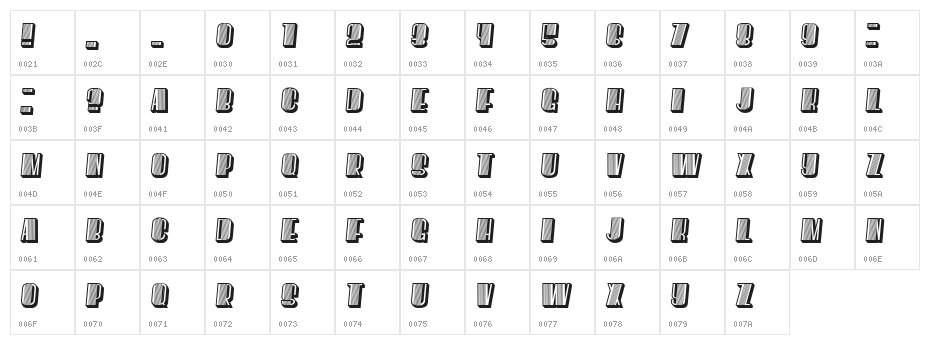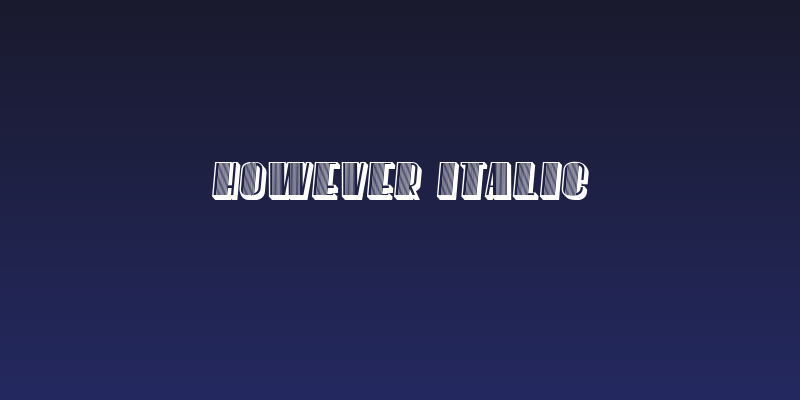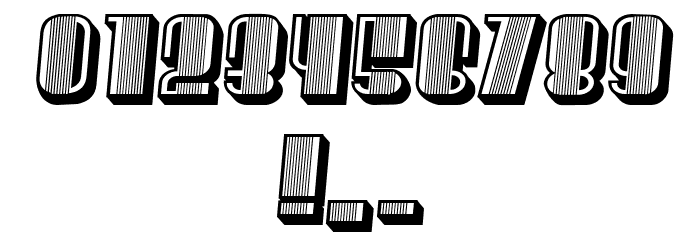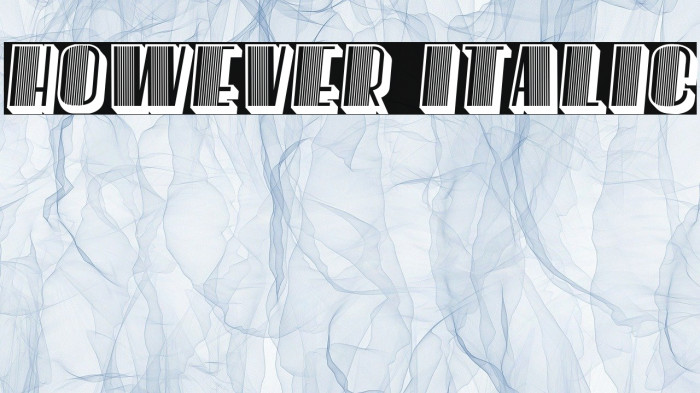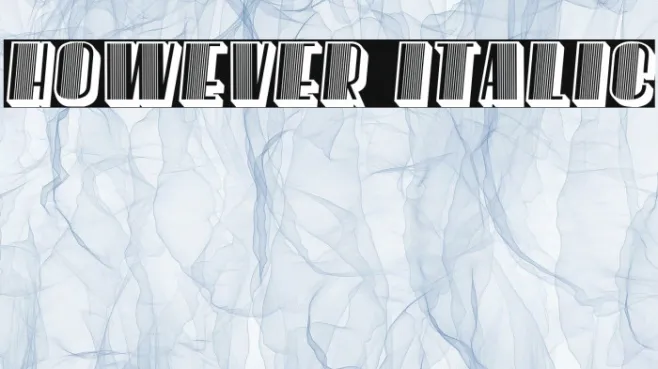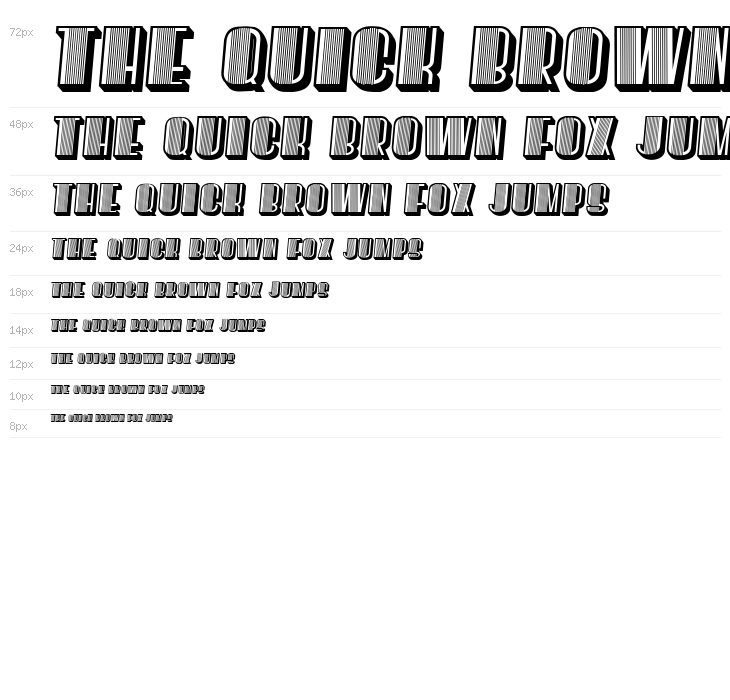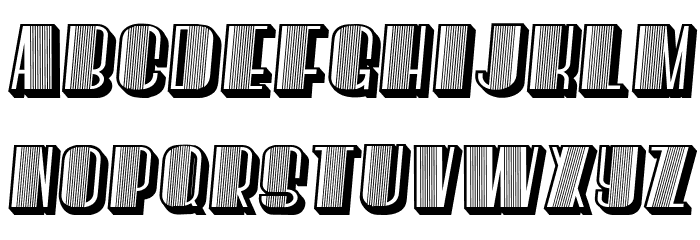
However Italic Font
However Italic Description
This font features a bold and dynamic design with a three-dimensional effect created by diagonal lines running through each character. The letters are uppercase and lowercase, with numerals and a selection of special characters. The style is eye-catching and modern, making it suitable for projects that require a strong visual impact. The font's unique pattern and bold weight make it stand out, while the italic slant adds a sense of movement and energy.
| Proposed Projects | Ideal for posters, headlines, branding, and any design needing a striking, modern typeface. |